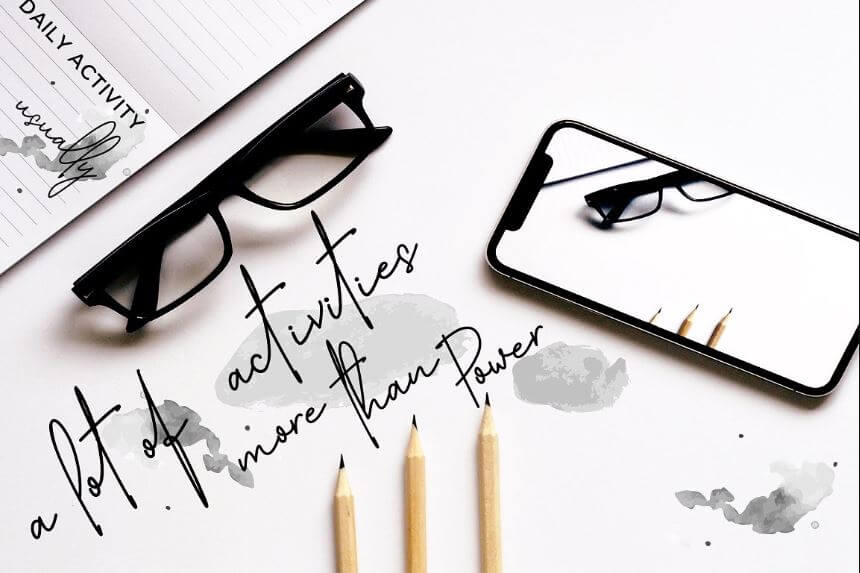
Nerea Art Nouveau Font
Nature is the queen within the art nouveau or simply Nerea Art Nouveau Font and it highlights the obviously it is intertwined in different forms. The shapes are sinuous, floral and modern, and from that know-how.
It comes to this new typographic undertaking big john. This font can be very a laugh and has robust roots in handĀlettering. The swirls and swoops found in the letters supply off pretty a few strength and the thinness of the letters.
Style of Nerea, Art Nouveau Font Free